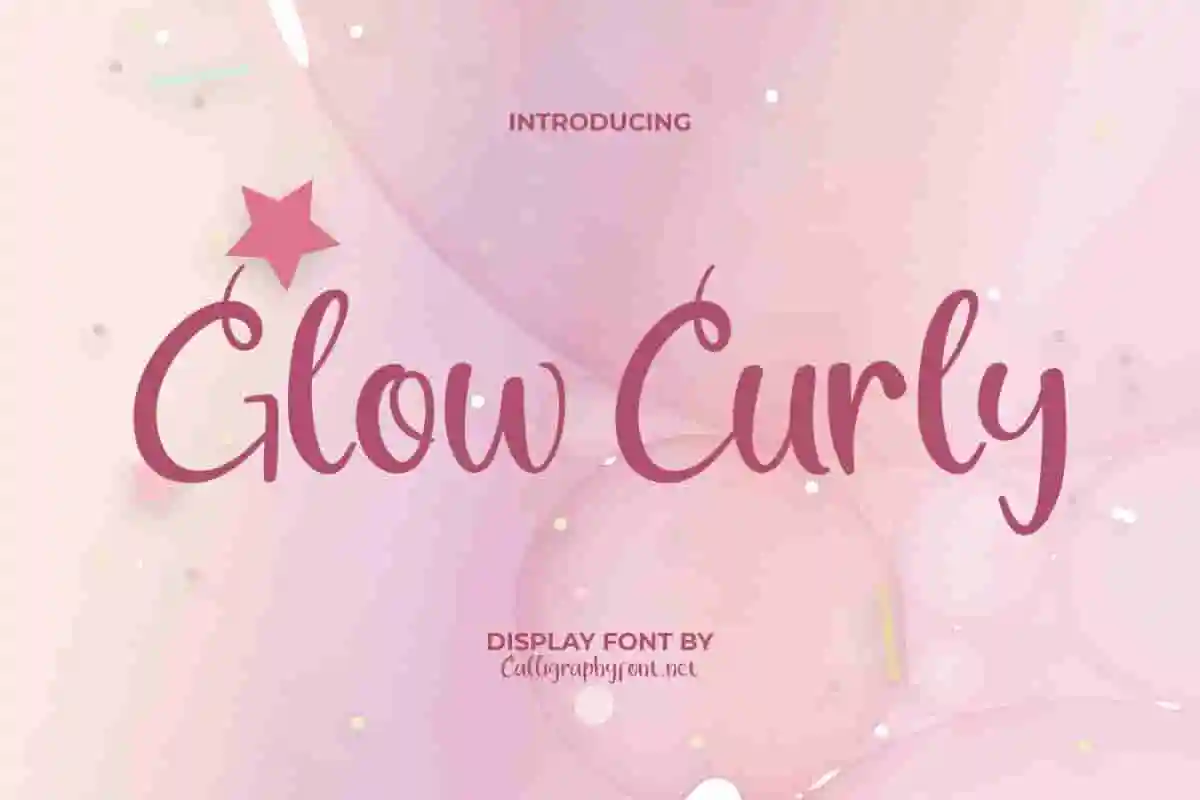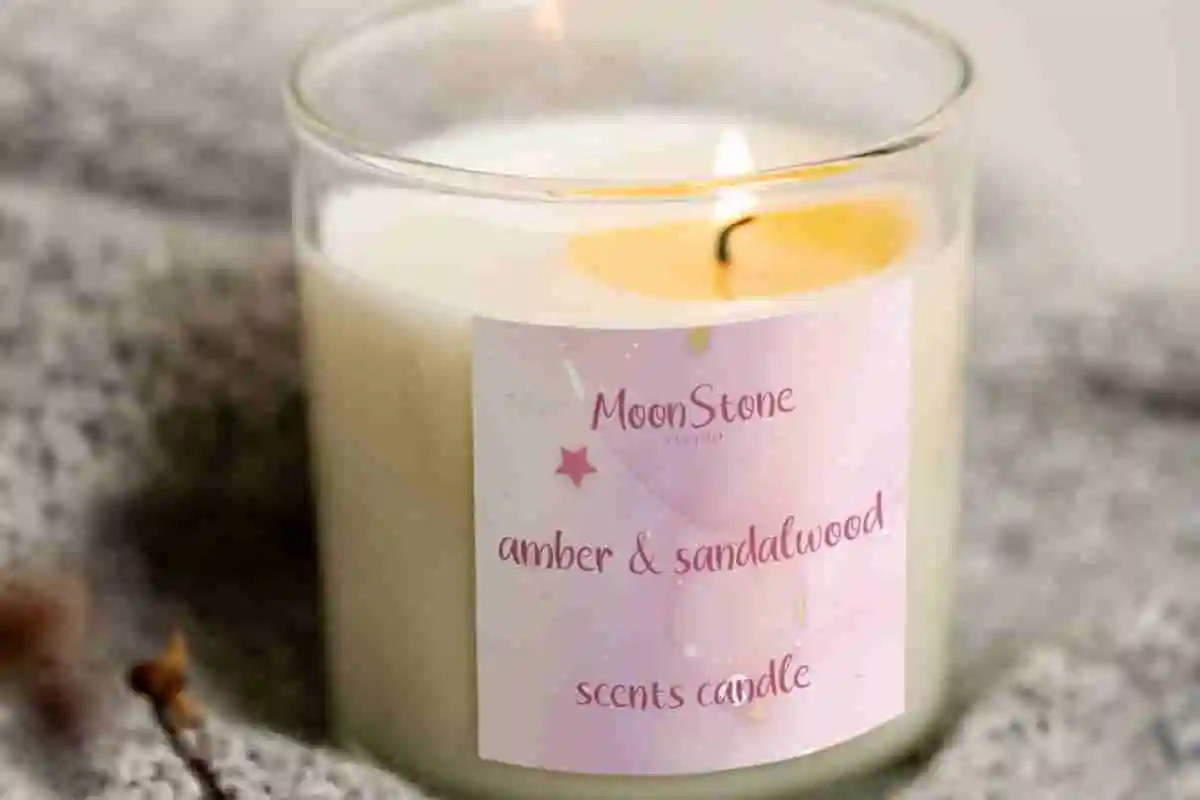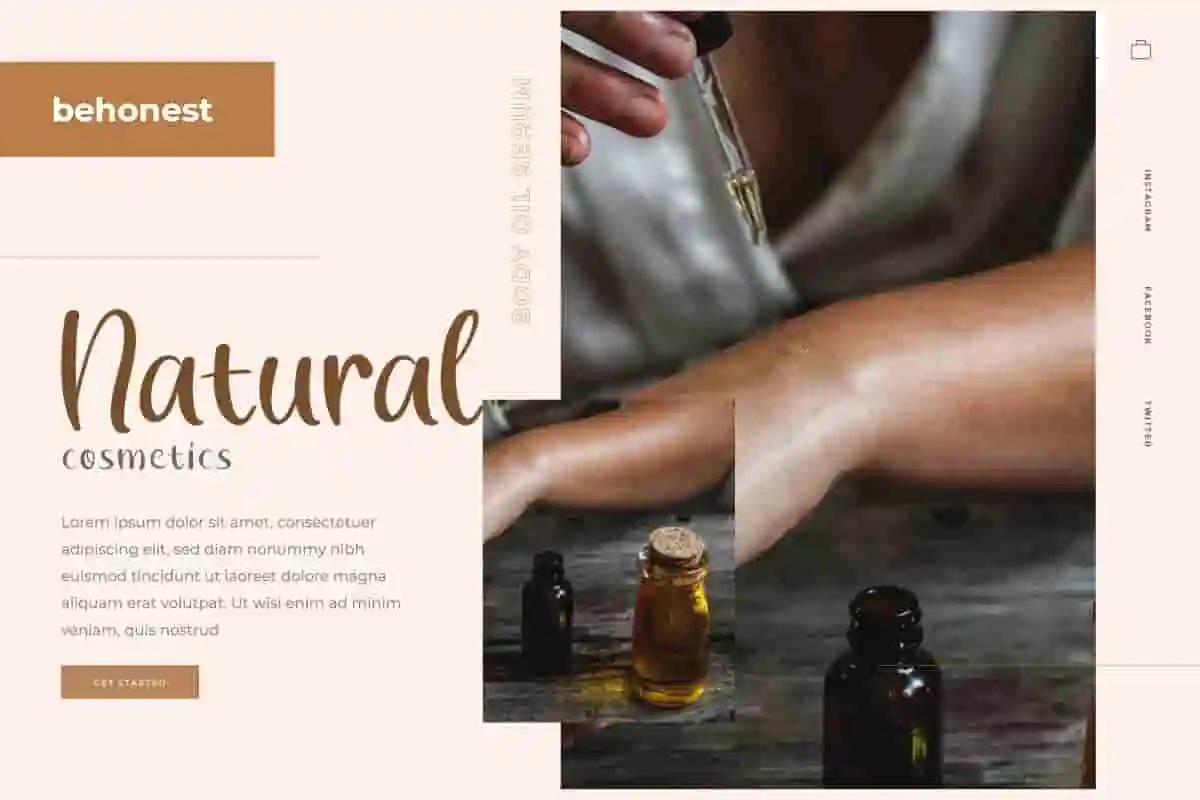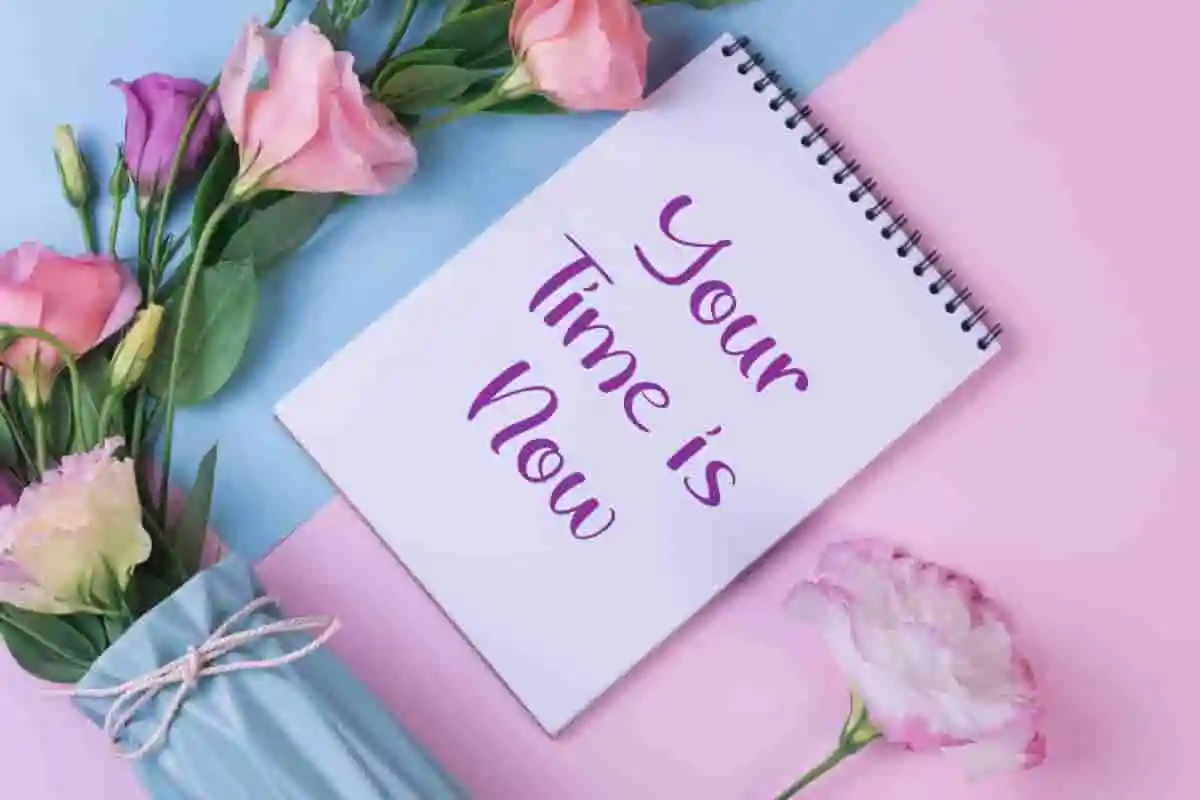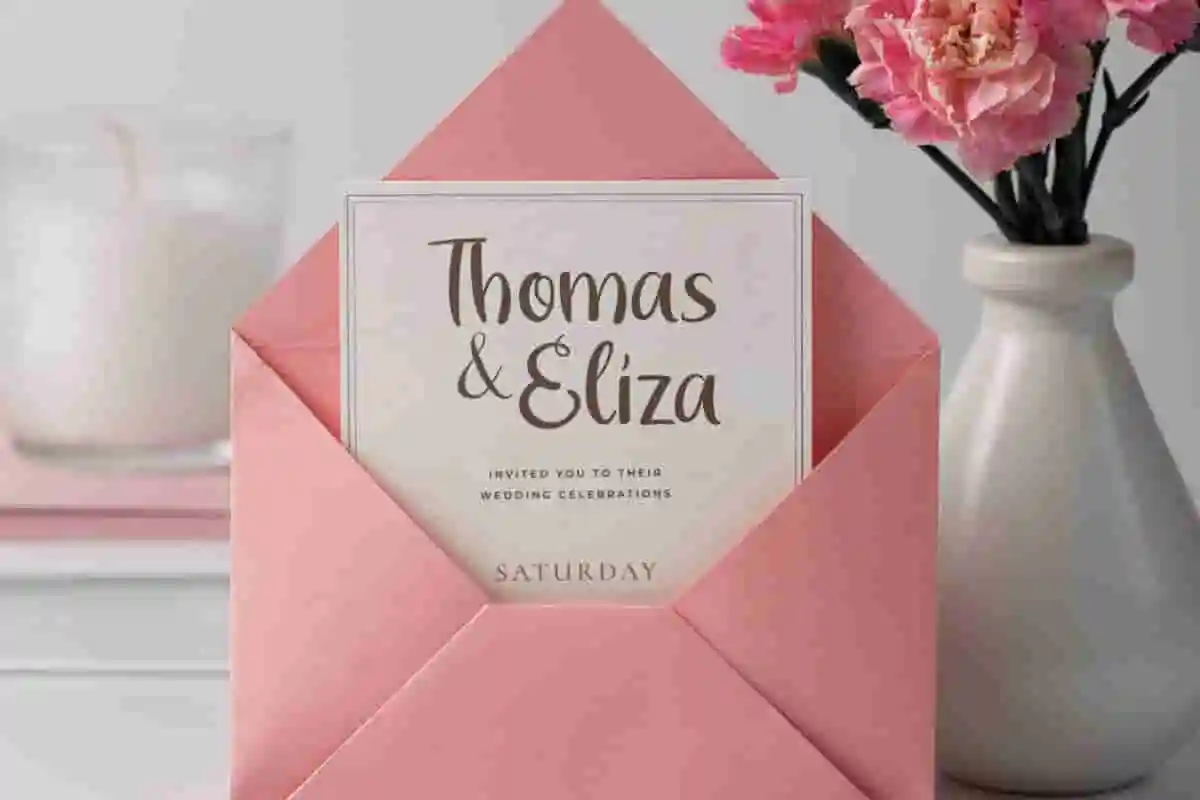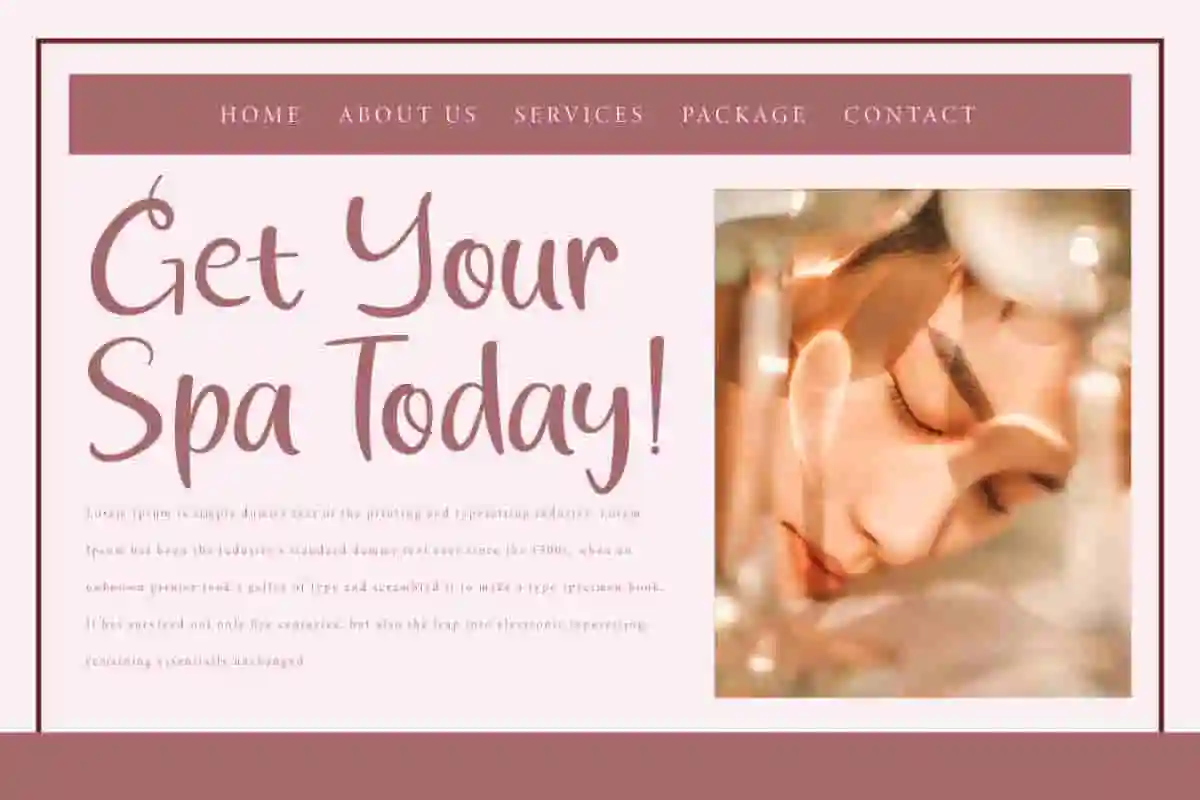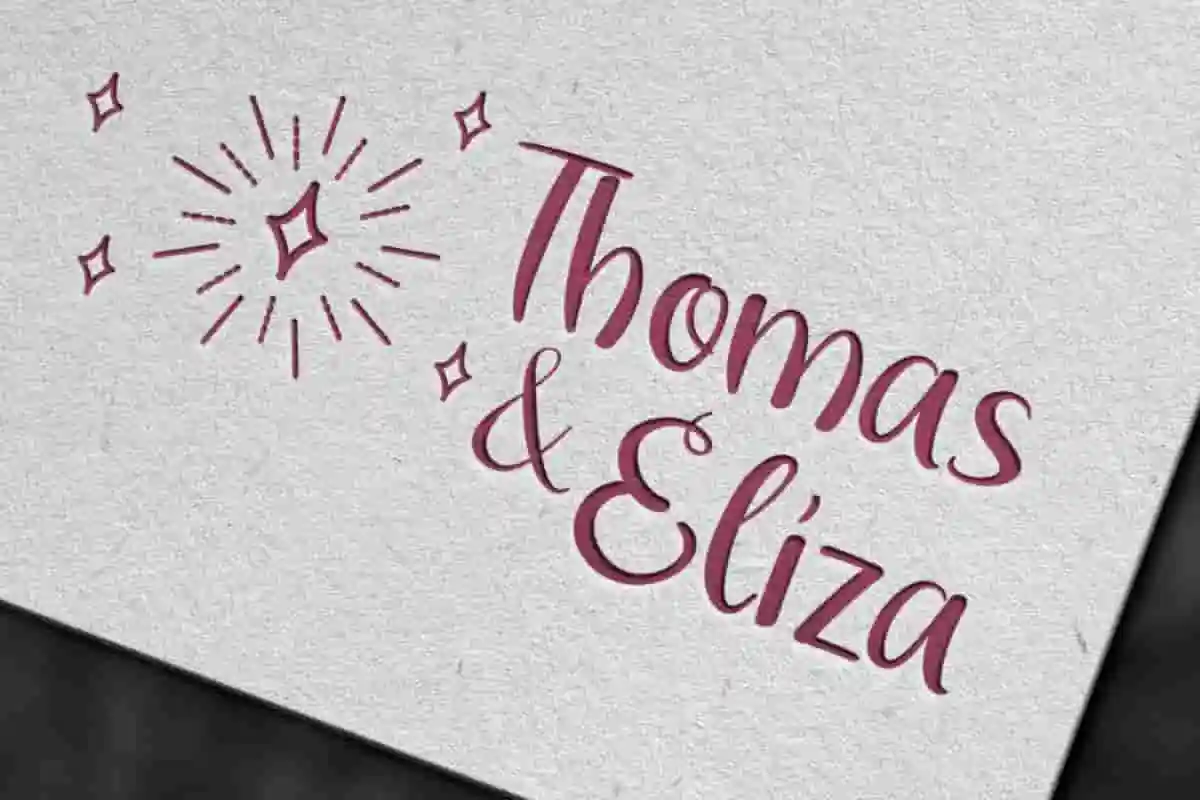
Glow Curly Calligraphy Font
Glow Curly Font is a stunning and eye-catching display font with a natural touch. Just like the name, it shines and curls!
Glow Curly Font is a stunning and eye-catching display font with a natural touch. Like the name, it shines and curls!. Handmade directly to give your design a special and personal touch. It will be perfectly used for book covers, brochure, branding, greeting cards, label, logo design, headers, lettering, logotype, magazine, mockup template, packaging, pamphlet, posters, quotes, shopping bags, t-shirts, websites, and other design project.
Add a touch of charm and sophistication to your designs with Glow Curly Calligraphy Font, a beautifully crafted script font that dances with elegant curls and flowing strokes. Perfect for those who want their work to glow with personality, this font effortlessly combines playful whimsy with refined style.
Designed for creatives, Glow Curly is ideal for wedding invitations, branding, logos, social media posts, greeting cards, and product packaging. Its graceful curves and delicate loops create a natural, handcrafted feel that brings warmth and romance to any project. Transform your creative projects with Glow Curly Calligraphy Font, a stunning script font that features delicate curls and flowing strokes inspired by natural handwriting. Perfect for designers seeking a blend of elegance and playfulness, Glow Curly adds a magical touch to every word.
Whether you’re creating wedding invitations, branding materials, greeting cards, social media posts, or packaging, Glow Curly beautifully crafted letterforms offer a handcrafted feel that resonates with warmth and personality. Elevate your designs with Glow Curly Calligraphy Font, a beautifully crafted script font bursting with lively curls and smooth strokes.
- Graceful Curly Design
- Wide Usability
Glow Curly Font is perfect for your creative ideas, both formal and informal. It has a beautiful creative appearance so it will be easy to apply anywhere that needs a popular and professional font style. Use this for apparel, birthday parties, cafeteria, cosmetic, florist, food franchise, gardener, graphic design, handicraft, jewelry, photography, restaurant, skincare, spa salon, travel agency, wedding, and much more.